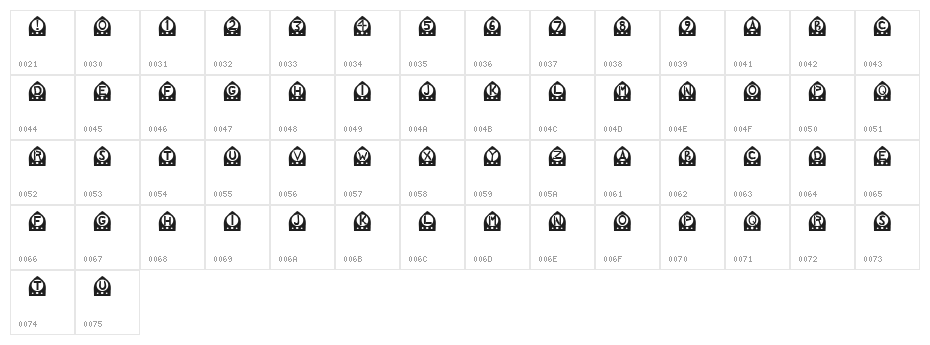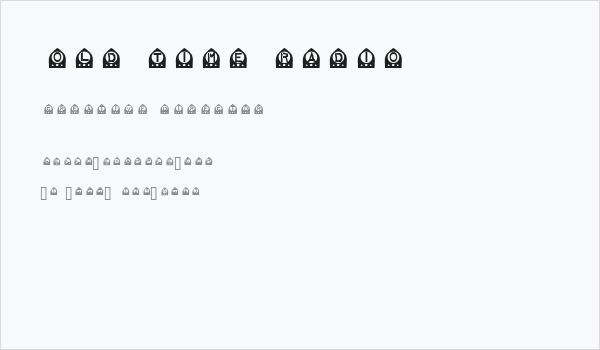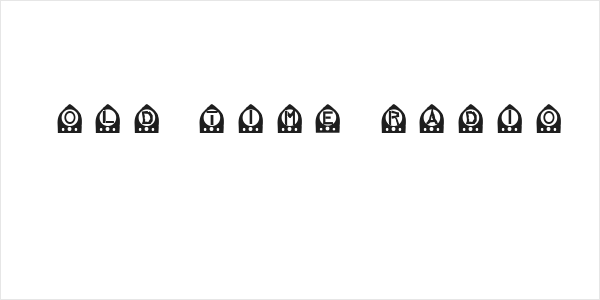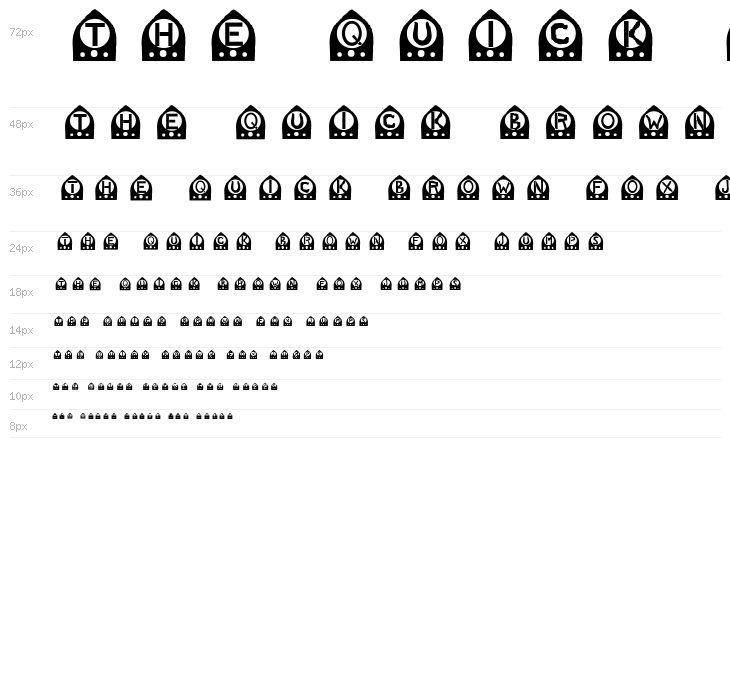
old time radio Font
old time radio Description
This font features a unique and nostalgic design reminiscent of vintage radio dials. Each character is enclosed within a stylized arch, evoking the classic look of old-time radio sets. The letters and numbers are bold and geometric, with a consistent thickness that adds to the retro aesthetic. The special characters are similarly enclosed, maintaining the cohesive design. This font is perfect for projects that aim to capture a sense of nostalgia or vintage charm, making it ideal for themed events, retro posters, or branding that seeks to evoke a bygone era.
| Proposed Projects | Ideal for retro-themed posters, vintage branding, themed events, and nostalgic designs. |